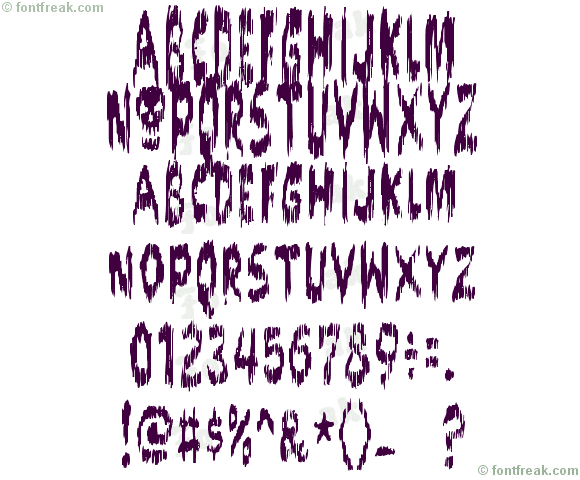
DOKTOR terror
DOKTOR terror is a striking display font designed by Jacob Fisher in 2002, characterized by its unique and dramatic aesthetic. This decorative typeface features uneven stroke weights and a chaotic, almost hand-drawn quality that evokes a sense of urgency and excitement. The visual characteristics include jagged edges and irregular spacing, giving it a distinct, horror-inspired look that sets it apart from traditional fonts. Its playful yet eerie design makes it ideal for projects that seek to grab attention and convey a bold message.
This font is particularly well-suited for a variety of creative applications. It can enhance movie posters, especially for horror or thriller genres, where its unsettling appearance can effectively communicate the film's tone. Additionally, it works wonderfully for Halloween-themed invitations and party flyers, making them more engaging and visually striking. Graphic designers may also find it perfect for album covers in the punk or metal music scenes, where a raw, edgy style is often desired. Restaurant menus, especially for diners or themed eateries, can benefit from the font’s quirky charm, enticing patrons to explore the offerings.
What truly makes the DOKTOR terror font stand out is its ability to blend fun with fright, making it an exceptional choice for those who dare to be different. If you're looking to make a statement in your designs, the DOKTOR terror font free download is a must-have for your typography toolkit.